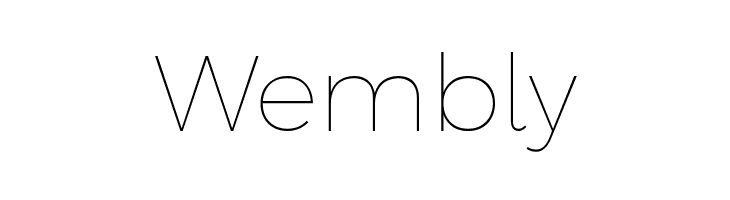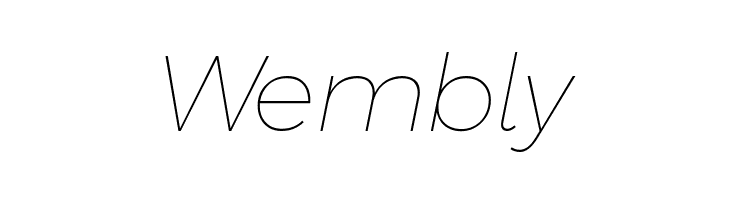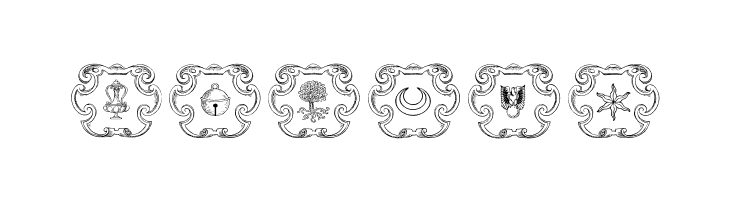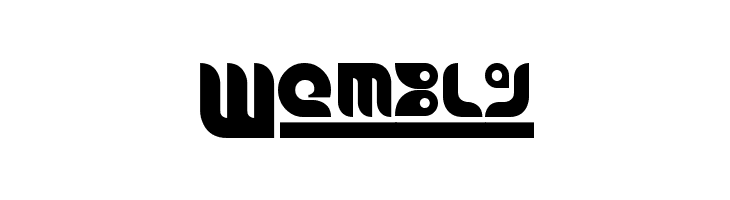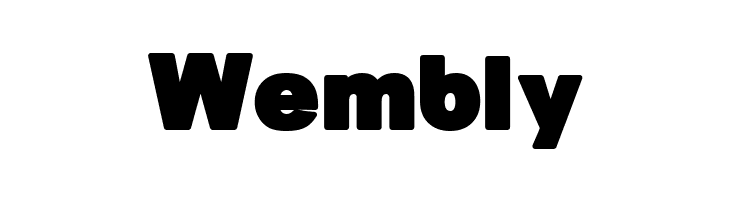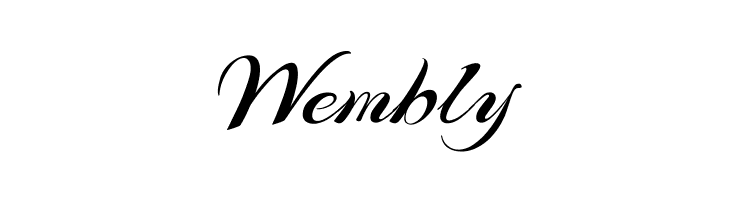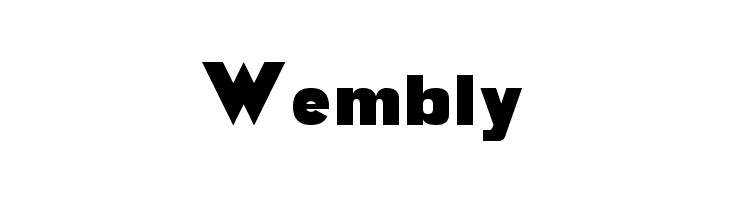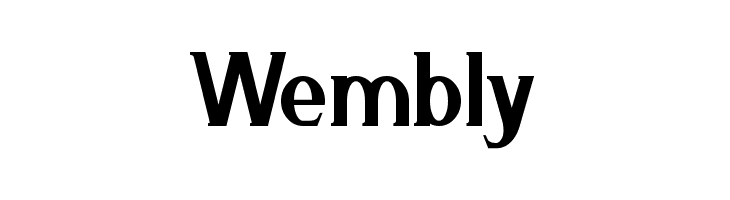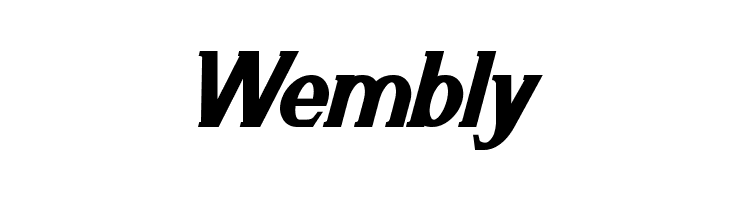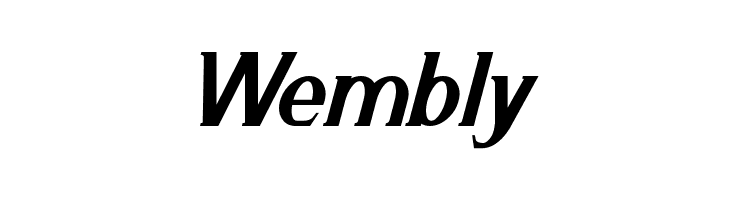
A sleek, modern font with thin lines and balanced spacing.
A sleek, thin, and italicized font with a modern and minimalist design.
A flowing, elegant script font with a calligraphic style.
A cursive script font with elegant, flowing strokes and ornate details.
A modern, geometric sans-serif font with clean lines and balanced proportions.
A modern, geometric sans-serif font with excellent readability.
A bold, Gothic-inspired font with sharp angles and pointed serifs.
A bold, Gothic-inspired font with sharp angles and dramatic serifs.
A bold, italicized font with dynamic slant and strong visual impact.
A dynamic italic font with sharp angles and elegant serifs.
A bold, dynamic font with sharp angles and a slight slant, offering a modern yet retro feel.
A modern, arrow-themed font with bold, geometric characters.
A bold, Gothic-inspired font with a modern yet classic appeal.
A bold, hand-crafted font with a playful and artistic style.
An ornate, calligraphy-inspired font with decorative flourishes.
A bold, expressive font with sharp, angular strokes and a calligraphic influence.
A bold, geometric font with strong, modern letterforms.
A modern serif font with elegant curves and balanced proportions.
A decorative dingbat font featuring assorted icons and pictograms.
A modern, clean sans-serif font with excellent readability.
A bold, modern sans-serif font with clean lines and uniform strokes.
A bold, italicized font with a modern and dynamic style.